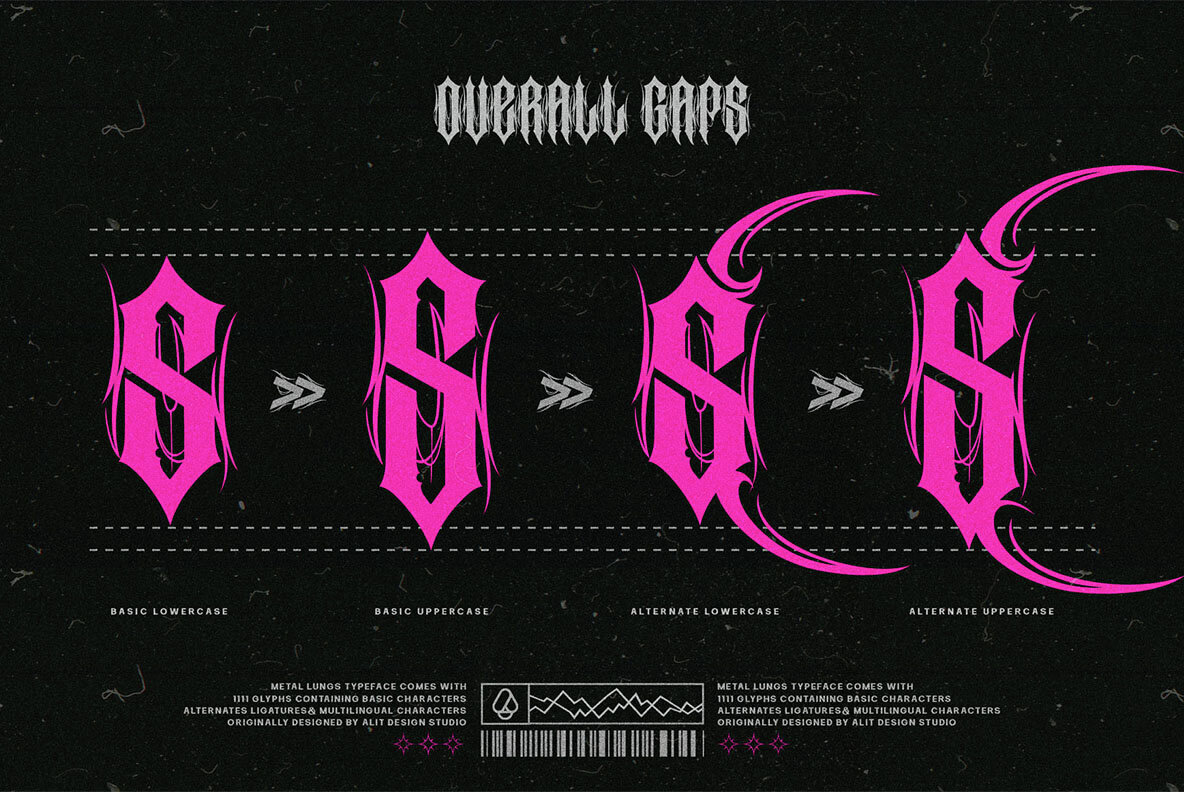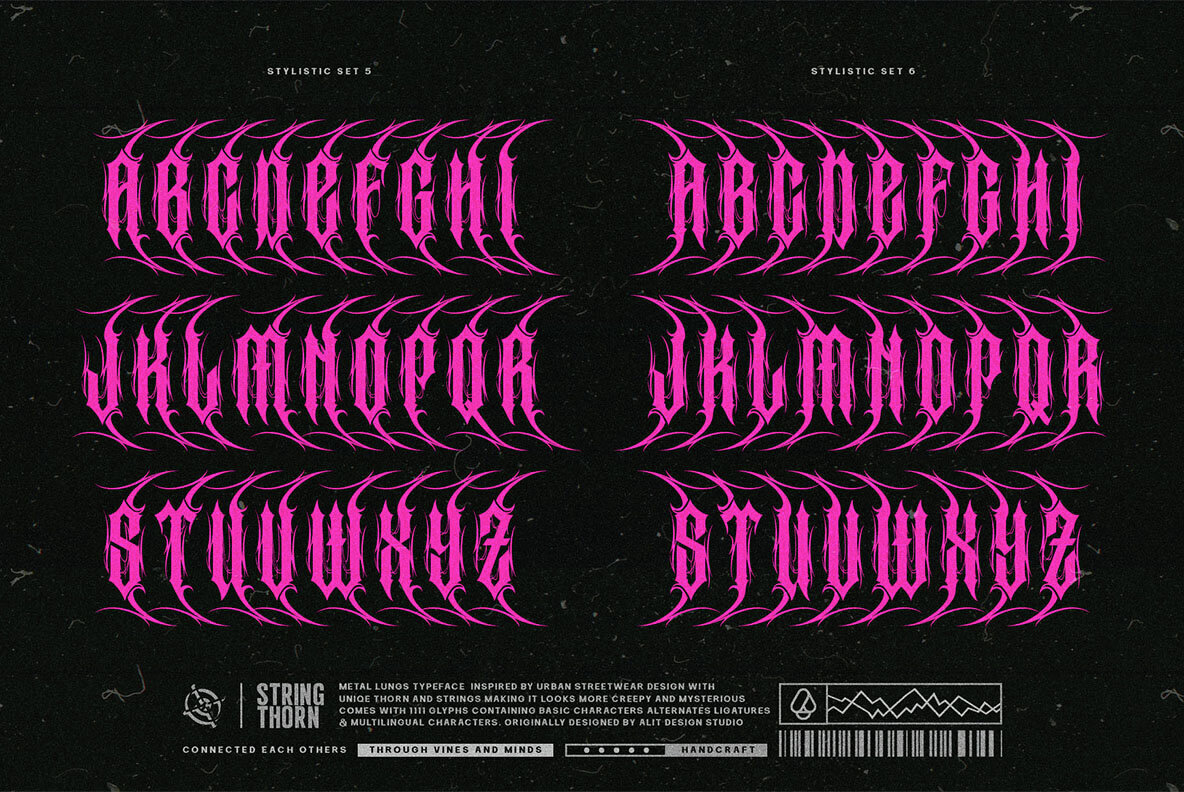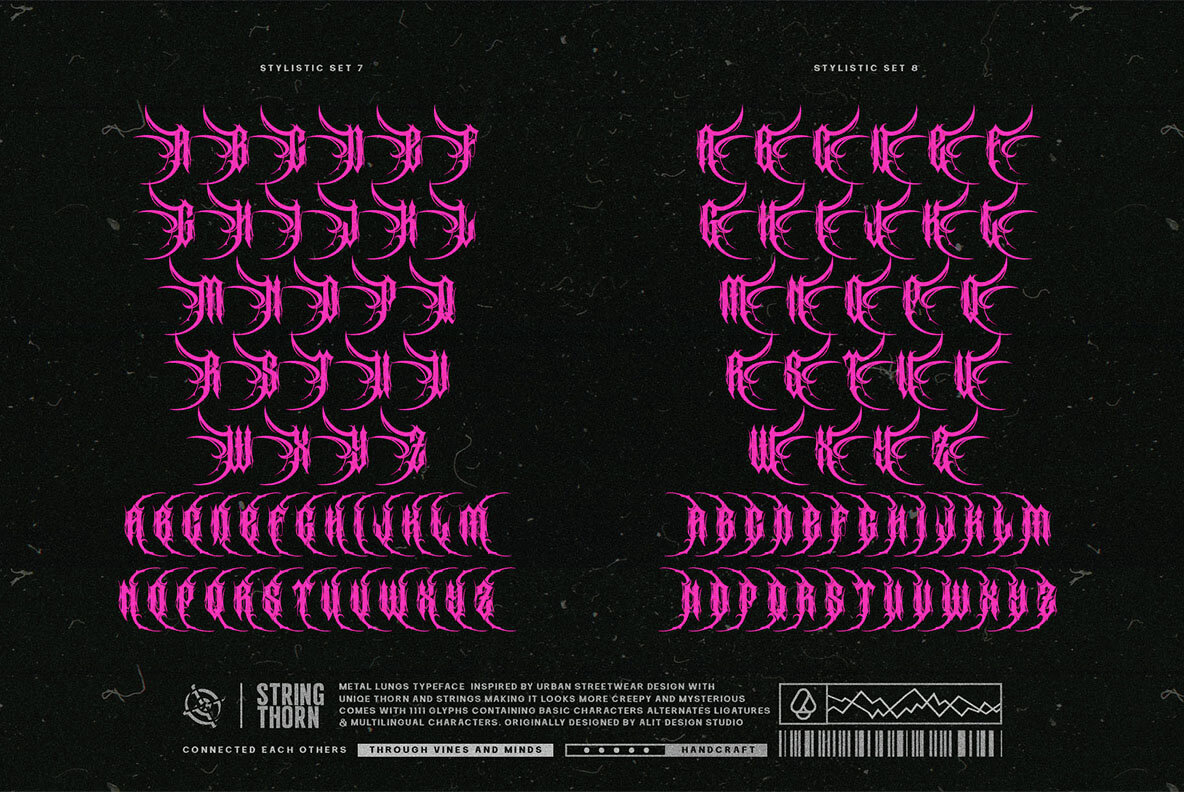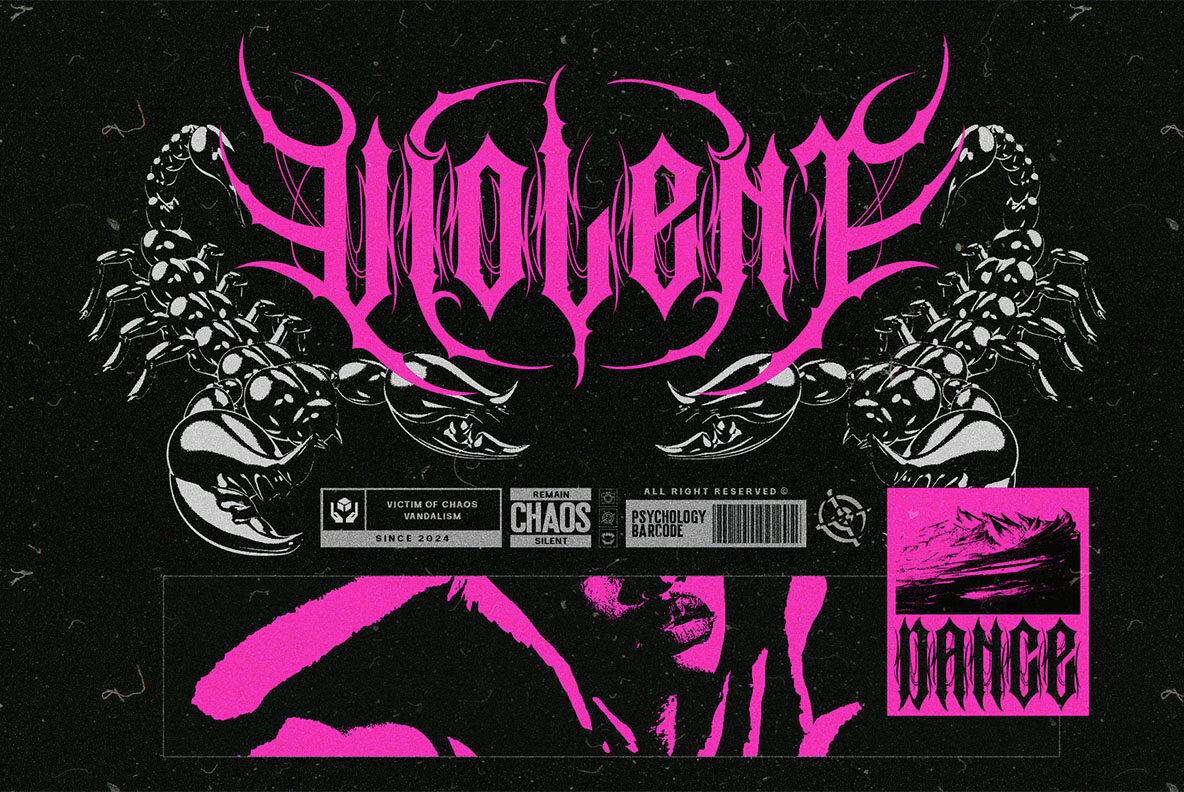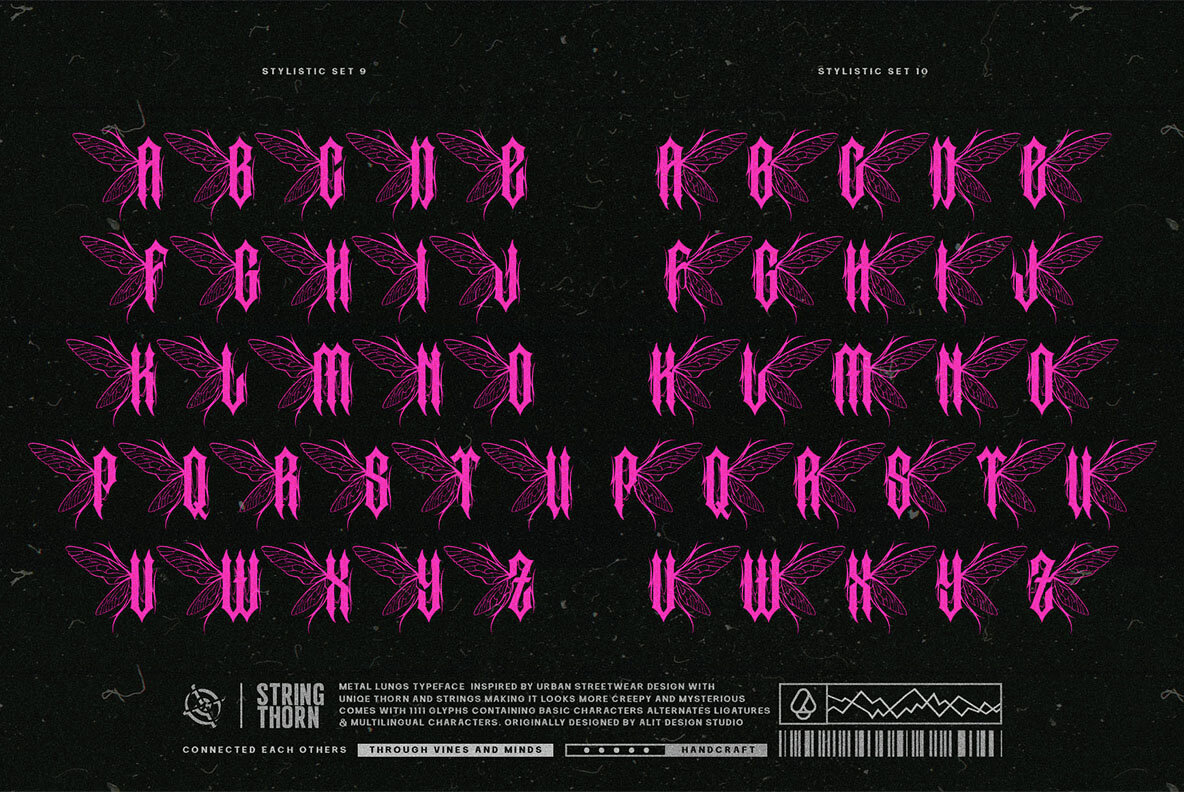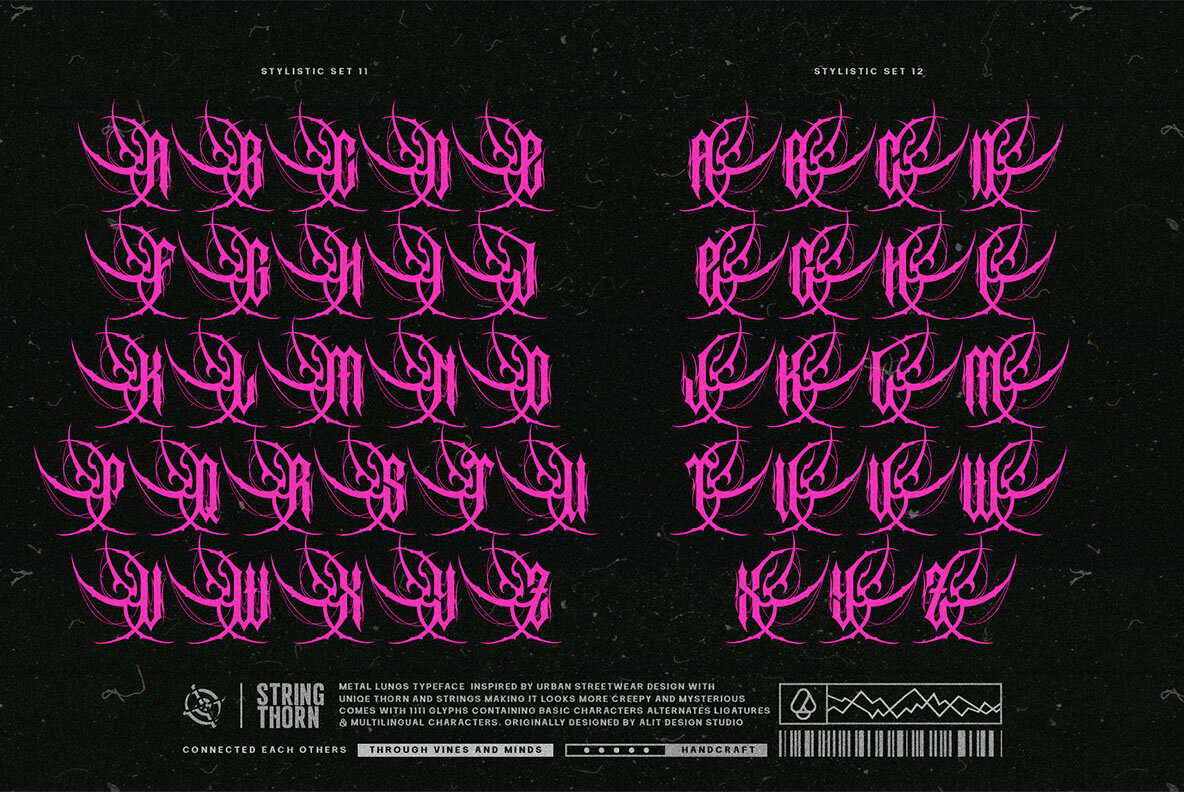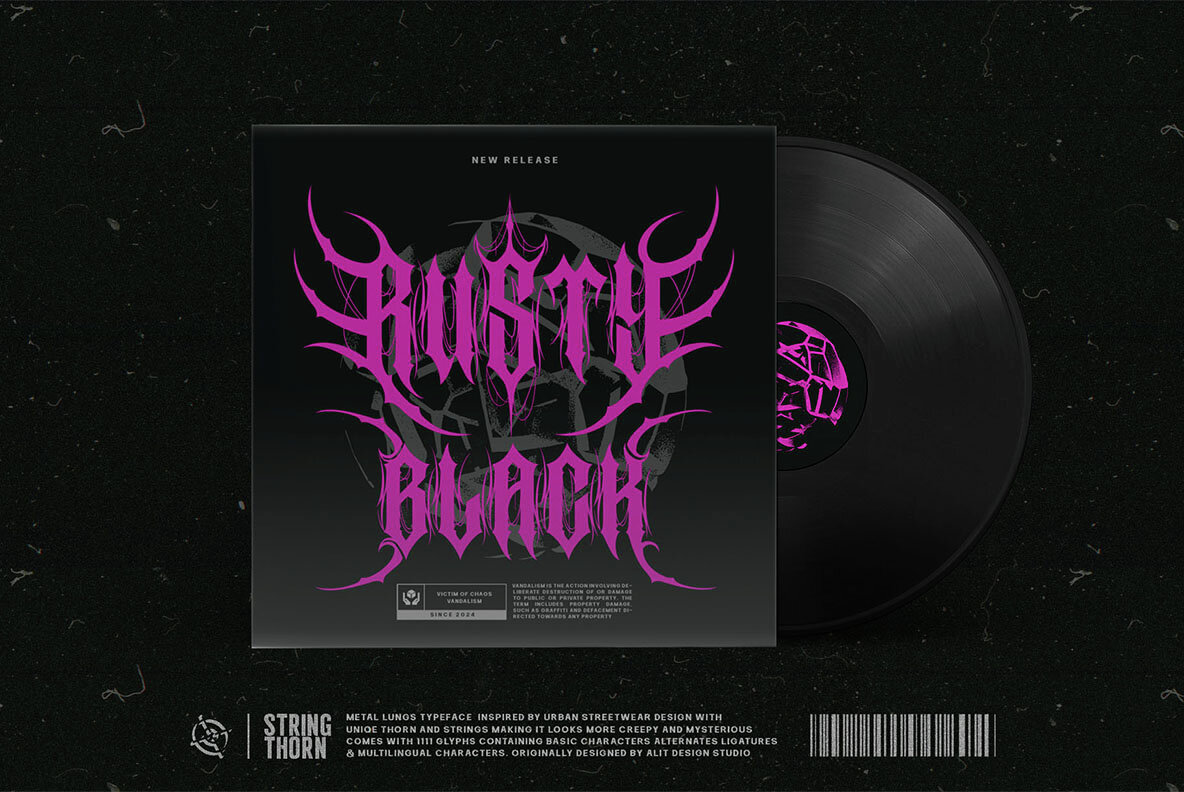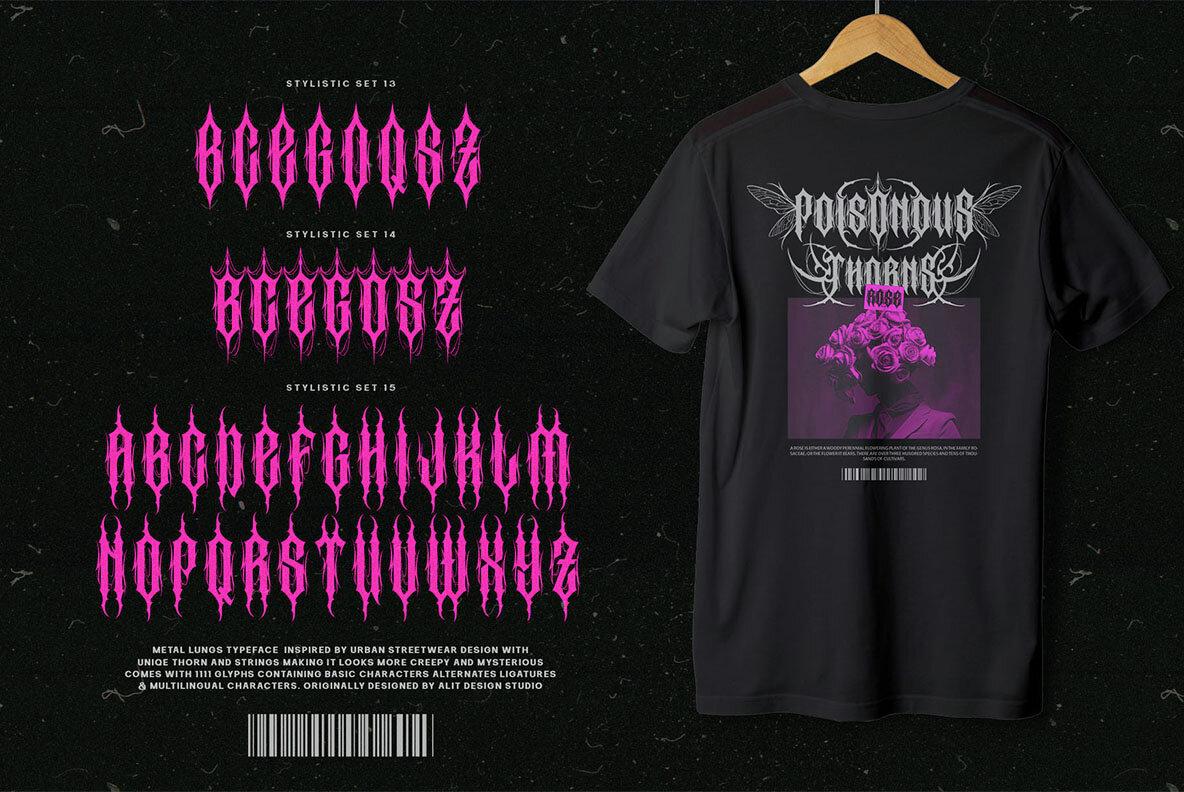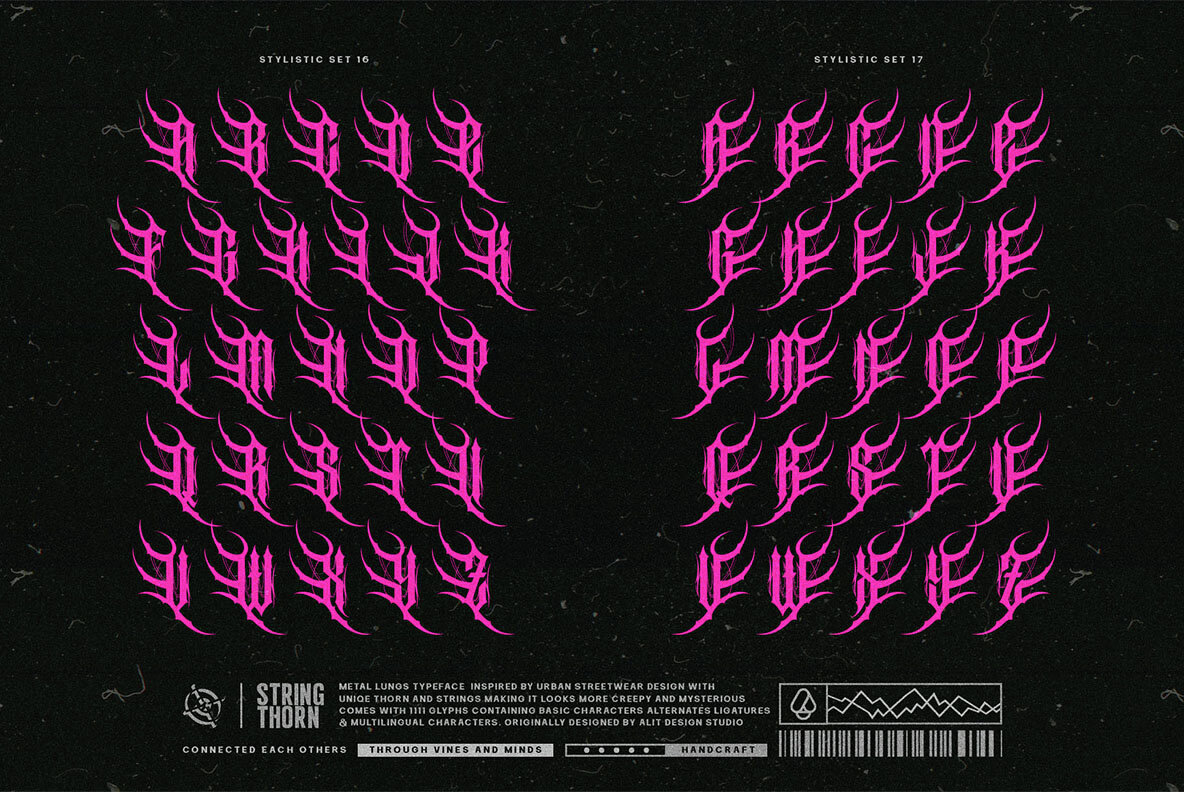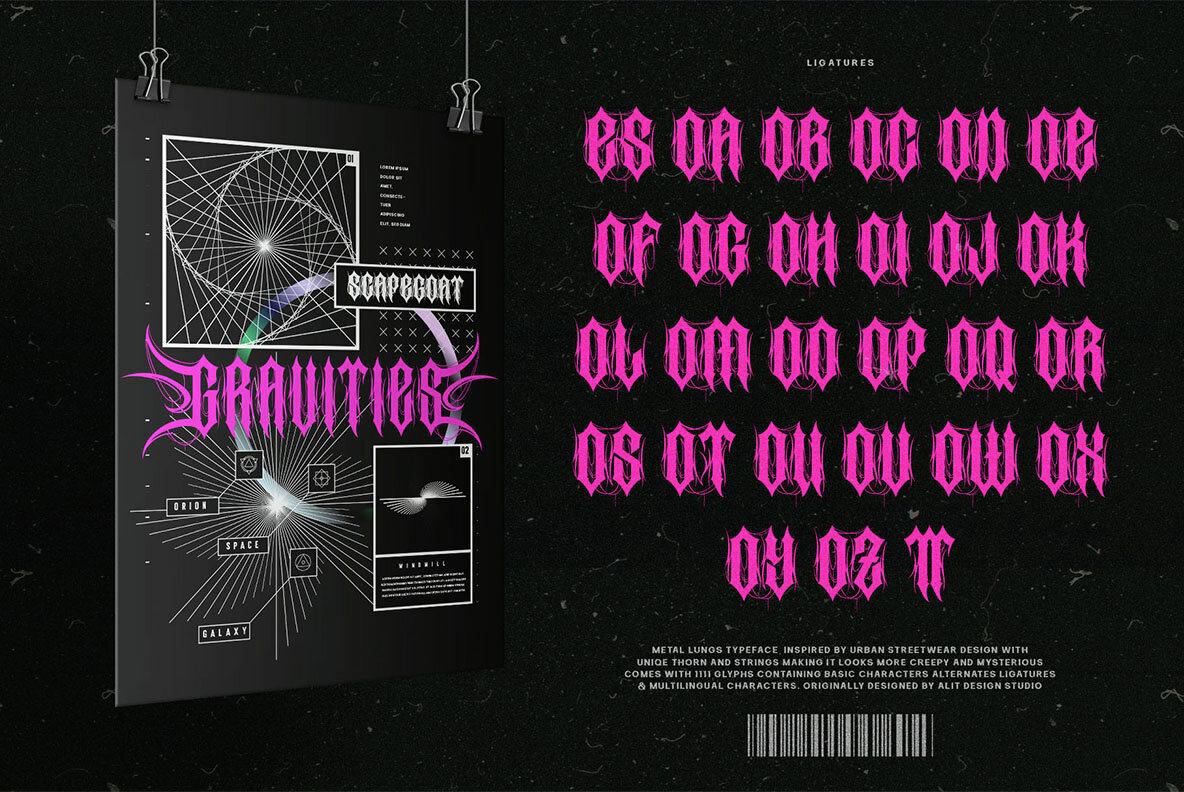
Metal Lung Font
expand_font Metal Lung Font Unleash primal intensity with Metal Lung Typeface - a font inspired by black metal's ferocity and rugged elegance. Blackletter,Bold,Edgy,Gothic,Medieval,Metal,Old Style,Tattoo,Whiskey Explore Exceptional Fonts for Digital and Traditional Media Fontpath offers a large variety of fonts for every designer, all at affordable prices and in multiple formats. Browse our best in class fonts today for all your creative needs, you can find everything you need right here at our site! Fonts,sans,sans serif,retro,script,decorative,title,FontPath 20140312040223 Fontpath offers 200,000+ of the most professional fonts found online, start downloading today! Real-Time Font Discovery at Fontpath
Metal Lung Font